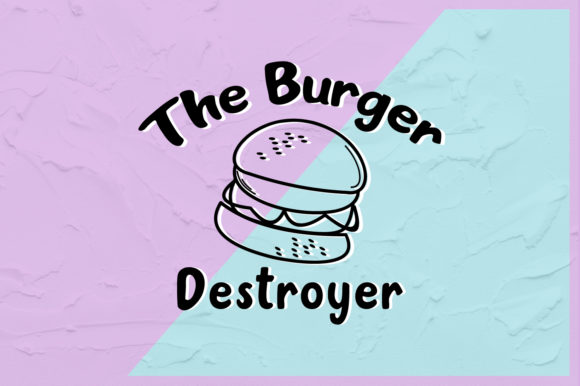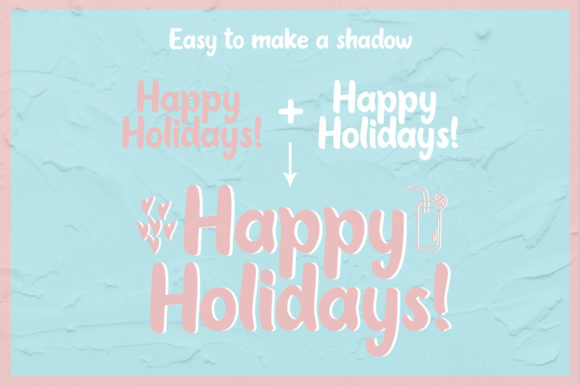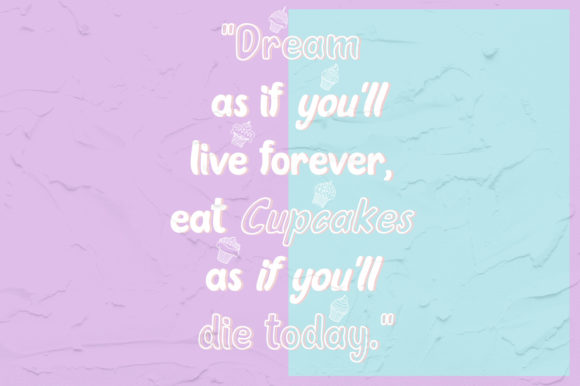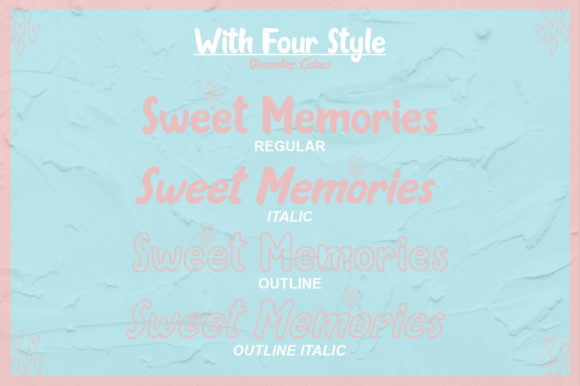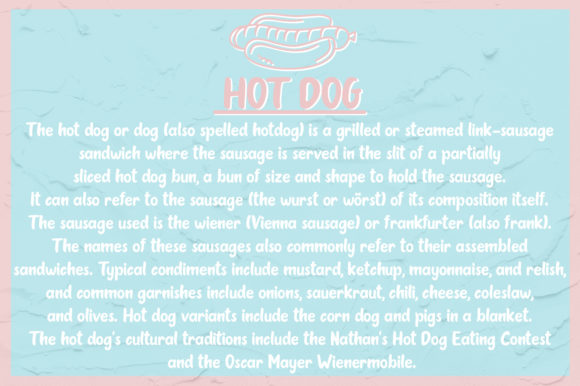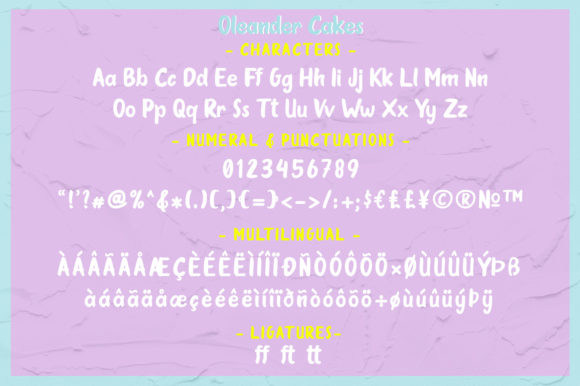
Introduction to Oleander Cakes Font
The Oleander Cakes is an amazing display font, made with manual brush strokes.
It includes four styles; regular, italic, outline and outline italic which can be combined perfectly but are also amazing as strong stand-alones It’s perfect for branding materials, design logos, posters, brochures, flyers, shirt designs, printing, book covers and more.
Key Features of Oleander Cakes Font